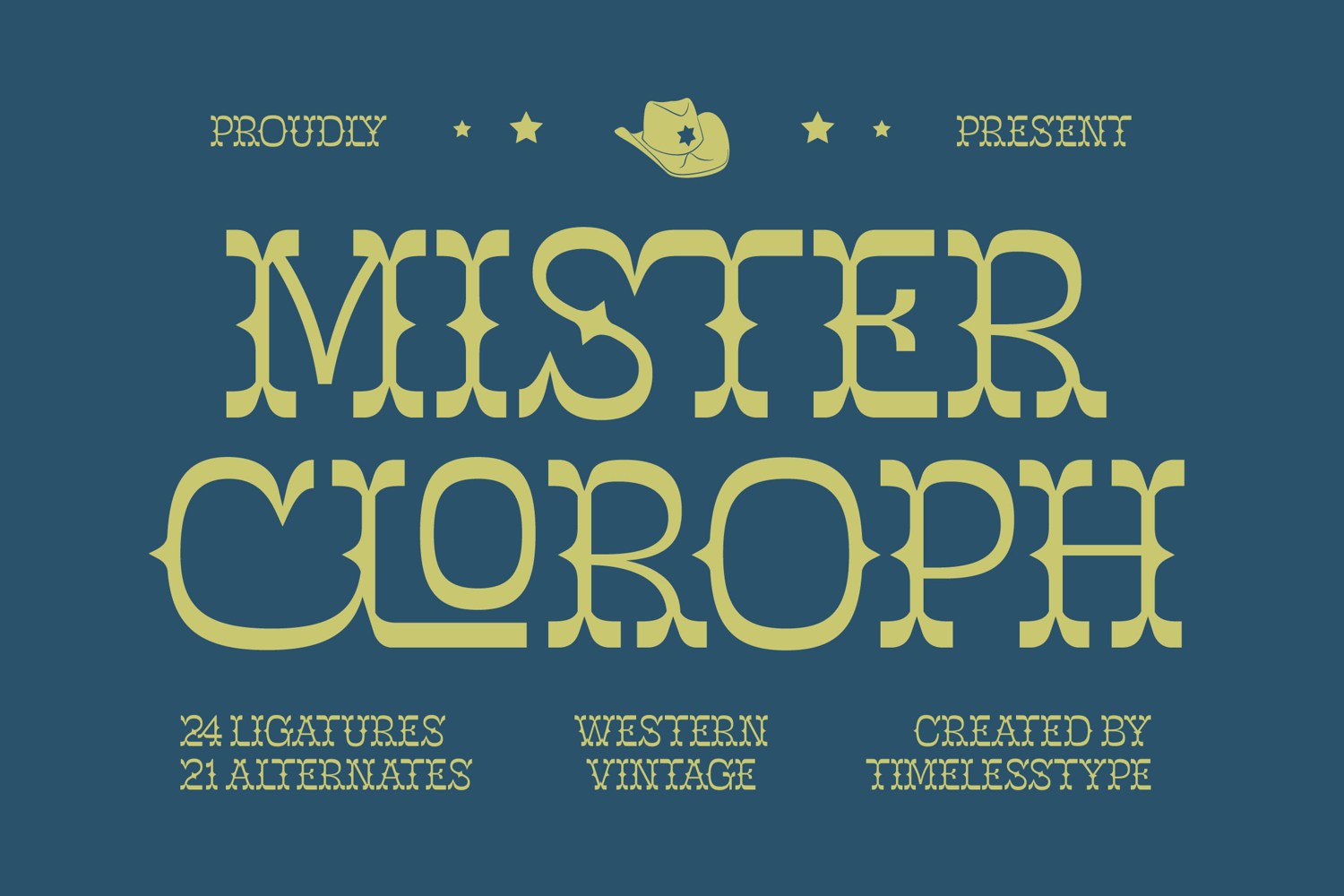
Mister Cloroph - Western Vintage Font
Mister Cloroph Italic
Mister Cloroph
Injecting instant character and cinematic drama into your projects, Mister Cloroph - Western Vintage Font is a powerful, decorative display typeface that captures the spirit of the American frontier. Its design features striking, elaborate curves, and distinctive spurred terminals, immediately communicating a sense of history and bold authenticity. This typeface is engineered for maximum visual impact at large sizes, making it an undeniable choice for headline typography and large-scale signage that demands attention.